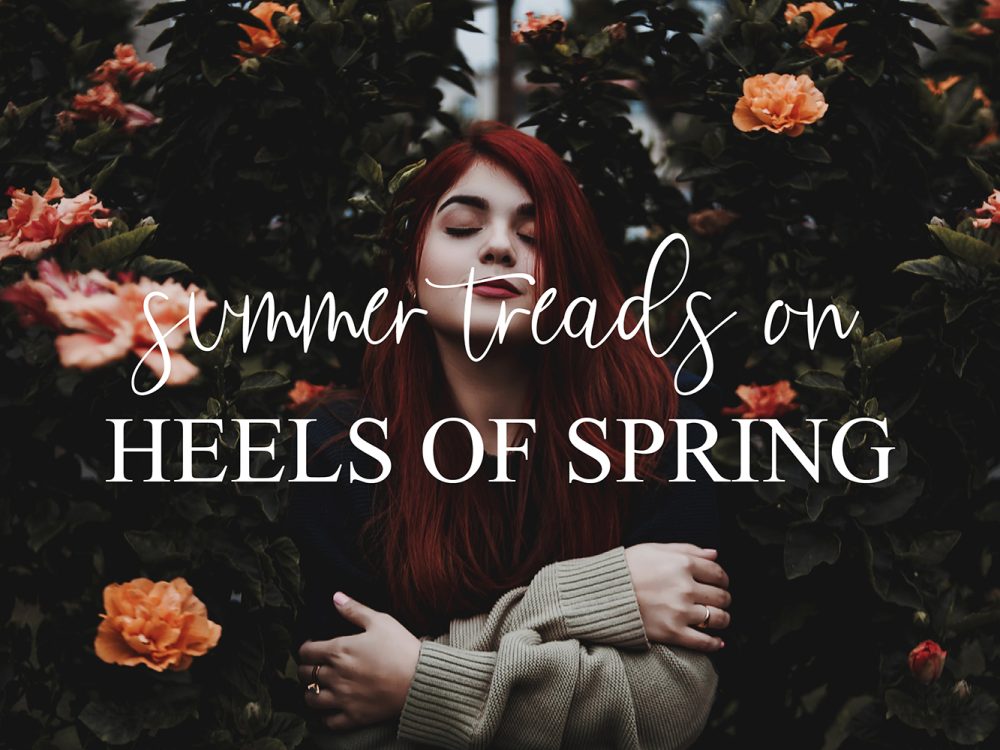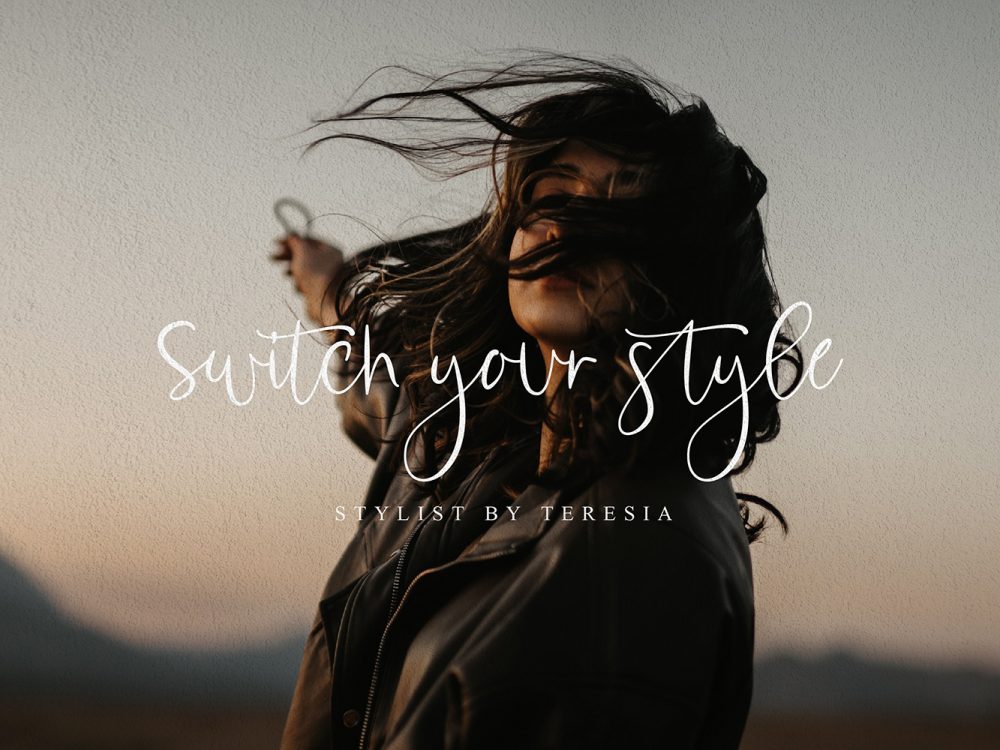
Experience the charm of Sweettea Free Font, a signature script font that beautifully blends modern calligraphy with elegance. This font is a versatile choice for a wide array of contemporary projects, such as headings, branding, blogs, fashion designs, logos, invitations, and much more! Elevate your creative endeavors with the enchanting touch of Sweettea, as it effortlessly adds a sophisticated flair to your work. Whether you’re crafting a brand identity or preparing stunning invitations, Sweettea is the perfect companion to achieve a truly captivating and stylish outcome. Embrace the beauty of this signature script font and witness the magic it brings to your every design. If you like it don’t forget to check out the full version.